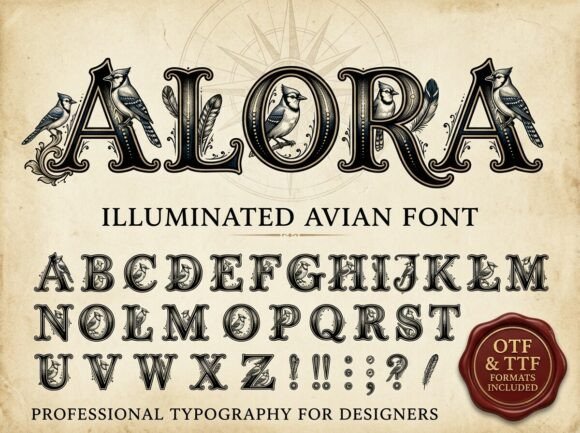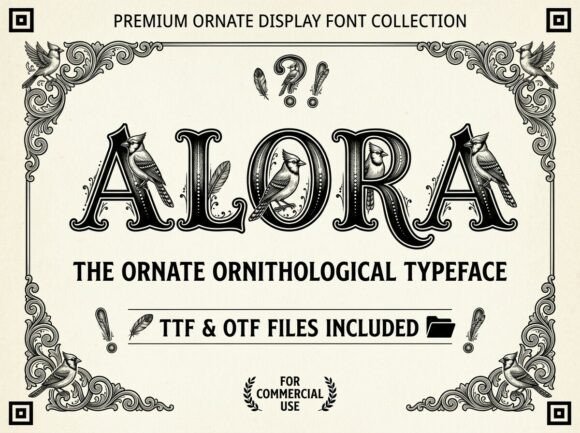
Introducing Alora Font: The Ultimate Display Font for Creative Minds
Are you tired of using the same old fonts for your creative projects? Look no further than Alora Font, a stunning decorative display font designed to make a statement. With its unique artistic elements and strong visual personality, this font is perfect for creators who want to break away from the ordinary and add a touch of elegance to their work.
Alora Font is a versatile and eye-catching font that is sure to grab attention. Its bold and artistic design makes it ideal for use in bold headlines, artistic logos, and creative packaging. Whether you’re a designer, craftsperson, or DIY enthusiast, this font is sure to elevate your project and give it a professional and polished finish.
What to Expect
⚠️ IMPORTANT NOTE BEFORE PURCHASE: Alora Font is an ALL-CAPS (Uppercase Only) display typeface. This means that it does not include lowercase letters. It is specifically designed for high-impact headlines, logos, and decorative initials where every letter is a work of art. If you’re looking for a font for body text or longer paragraphs, Alora Font may not be the best choice. However, if you want to create a bold statement or add a touch of elegance to your project, this font is perfect.
Why Choose Alora Font?
So why choose Alora Font over other display fonts on the market? Here are just a few reasons:
• Unique Artistic Elements: Alora Font features unique artistic elements that set it apart from other fonts. Its bold and elegant design ensures that your project will stand out from the crowd.
• Strong Visual Personality: This font has a strong visual personality that is sure to make a statement. Whether you’re creating a logo, headline, or packaging, Alora Font is sure to grab attention.
• Versatility: Alora Font is versatile enough for use in a variety of projects, from bold headlines and artistic logos to creative packaging and more.
• Professional and Polished Finish: This font maintains a professional and polished finish, ensuring that your project looks high-end and sophisticated.
• Use it for Headlines and Titles: Alora Font is perfect for use in headlines and titles. Its bold and artistic design ensures that your text will grab attention.
• Create a Logo or Brand Identity: This font is also great for creating a logo or brand identity. Its unique artistic elements and strong visual personality ensure that your brand will stand out.
• Add a Touch of Elegance: Alora Font can also be used to add a touch of elegance to your project. Use it for packaging, signage, or any other project where you want to make a statement.
In conclusion, Alora Font is a stunning decorative display font that is sure to make a statement. With its unique artistic elements, strong visual personality, and versatility, this font is perfect for creators who want to break away from the ordinary. Whether you’re a designer, craftsperson, or DIY enthusiast, Alora Font is sure to elevate your project and give it a professional and polished finish. So why wait? Purchase Alora Font today and start creating stunning projects that demand attention.